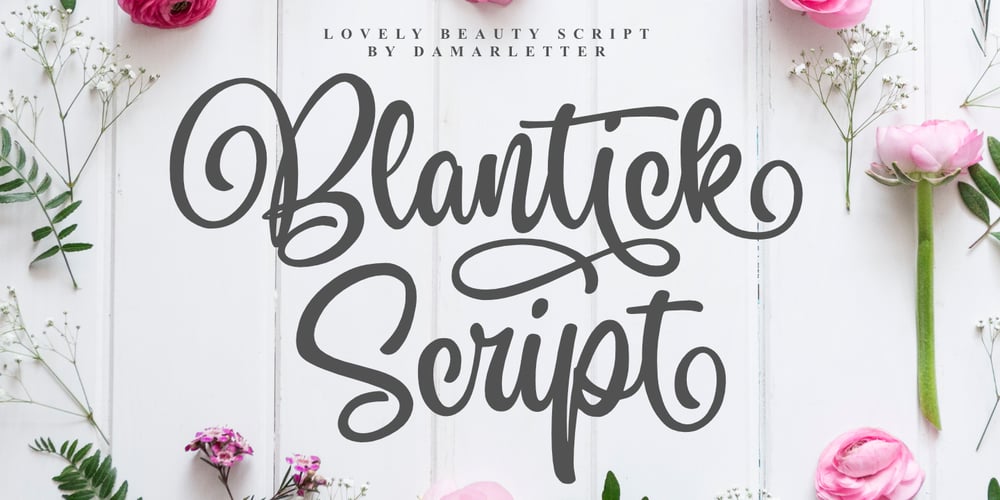
Blantick Script Font Family was designed by Ardian Nuvianto and published by Ardian Nuvianto. Blantick Script contains 1 styles and family package options. Blantick Script is lovely font fashionable style script. This font was created to look as close to a natural script as possible by including 12 standard ligatures, and stylistic set.Blantick Script is perfect for branding projects, logo, wedding designs, social media posts, advertisements, product packaging, product designs, label, photography, watermark, invitation, stationery and anything that you want.Here is that you get:More than 300 of glyphsWorks on PC & MacSimple installationsSupports multilingualAccessible in the Adobe Illustrator, Adobe Photoshop, Adobe InDesign, even work on Microsoft Word.PUA Encoded Characters – Fully accessible without additional design software.